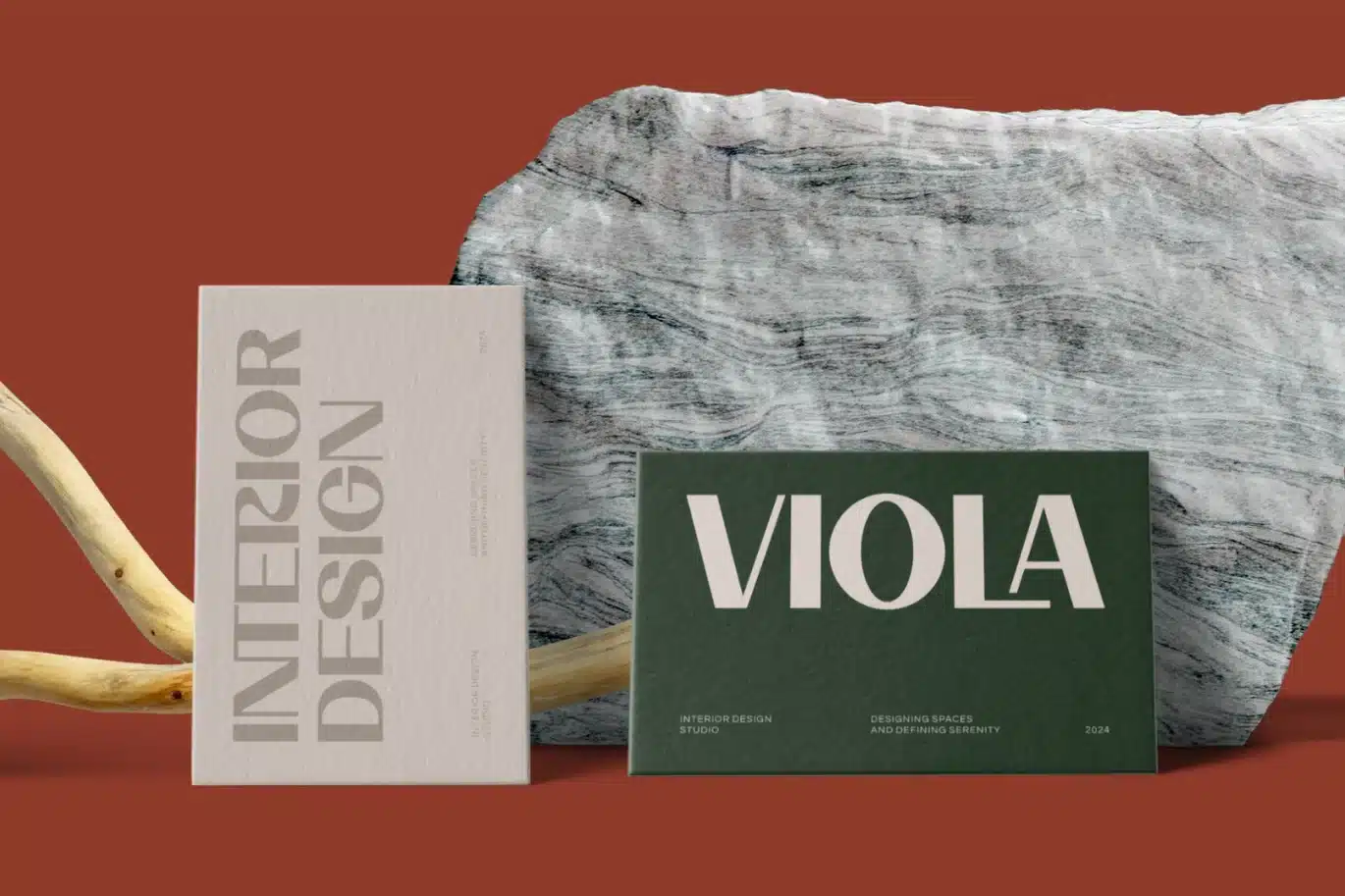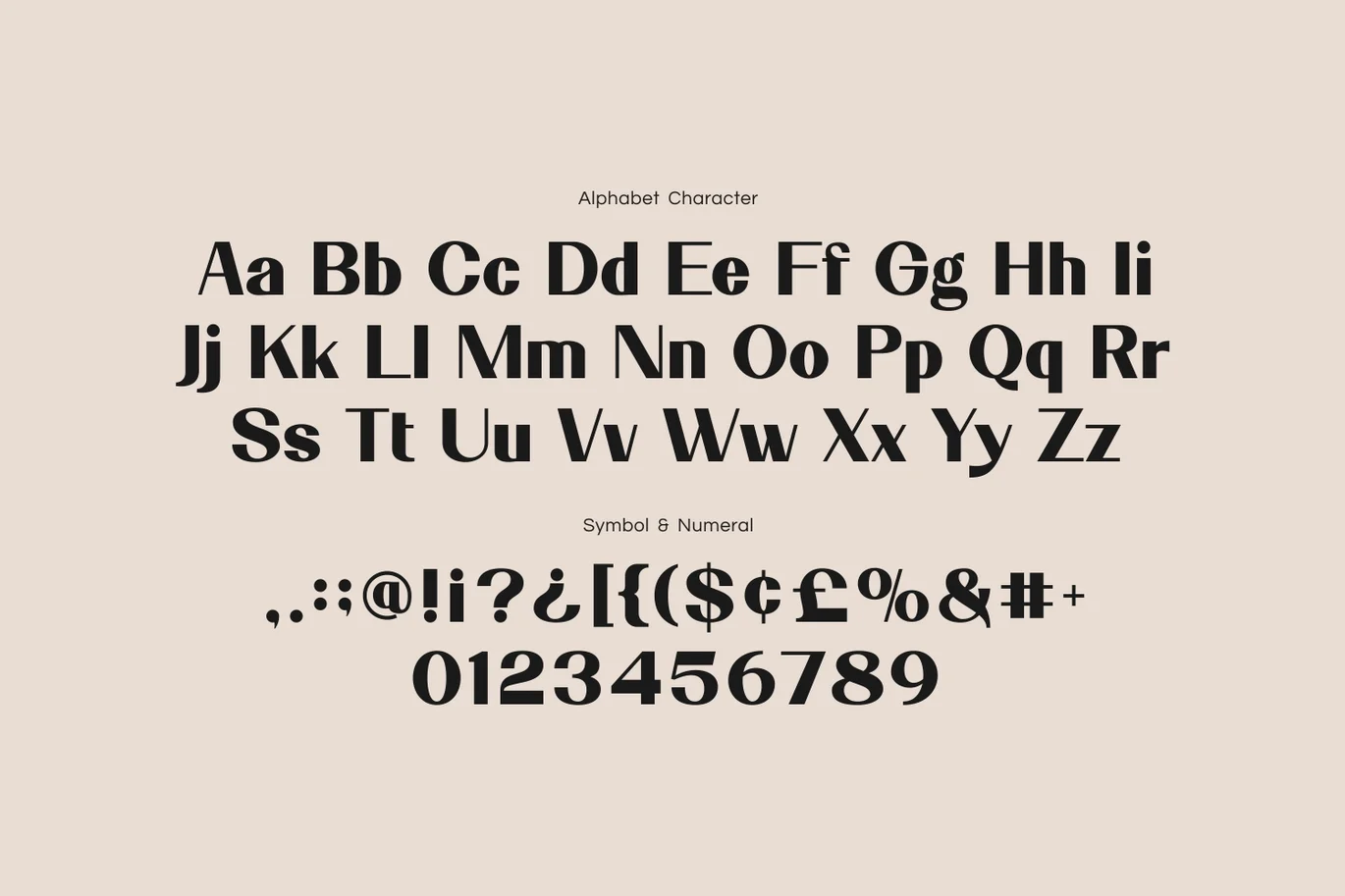
Luxury Bold – Erora Font
Luxury Bold – Erora combines luxury bold style with a minimal and clean elegant design. Its strong yet refined letterforms create a modern and exclusive look, making it the perfect choice for corporate logos, brand identities, and projects that demand a luxurious and royal touch.
With a bold yet graceful character, Erora is ideal for cinematic titles, travel promotions, cafe branding, and music covers. This font is crafted to balance elegance and visual strength, ensuring every design stands out with timeless sophistication.
Bring sophistication to every design — a font crafted for timeless elegance and luxury.